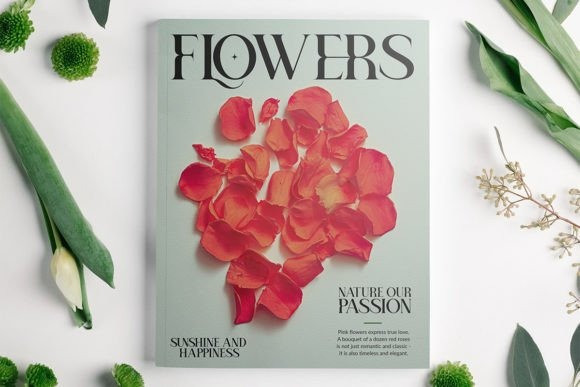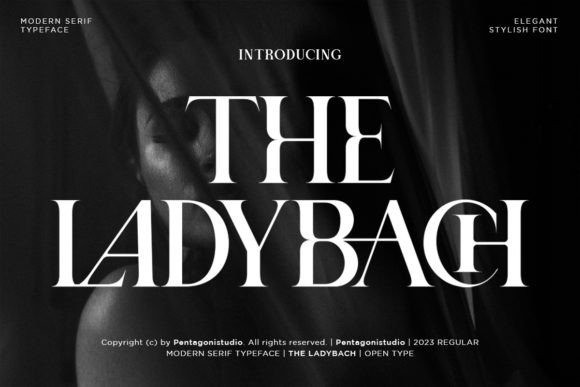
The Ladybach Font
The Ladybach Font – Is A Elegant Serif Font with Stylistic Alternates and Ligatures. It adapts wonderfully in contexts such as designing labels for perfumes, cosmetics, magazine covers, posters, manifests, flyers, social posts, and fashion. Use it in your creations so you can notice how it makes your projects become alive!